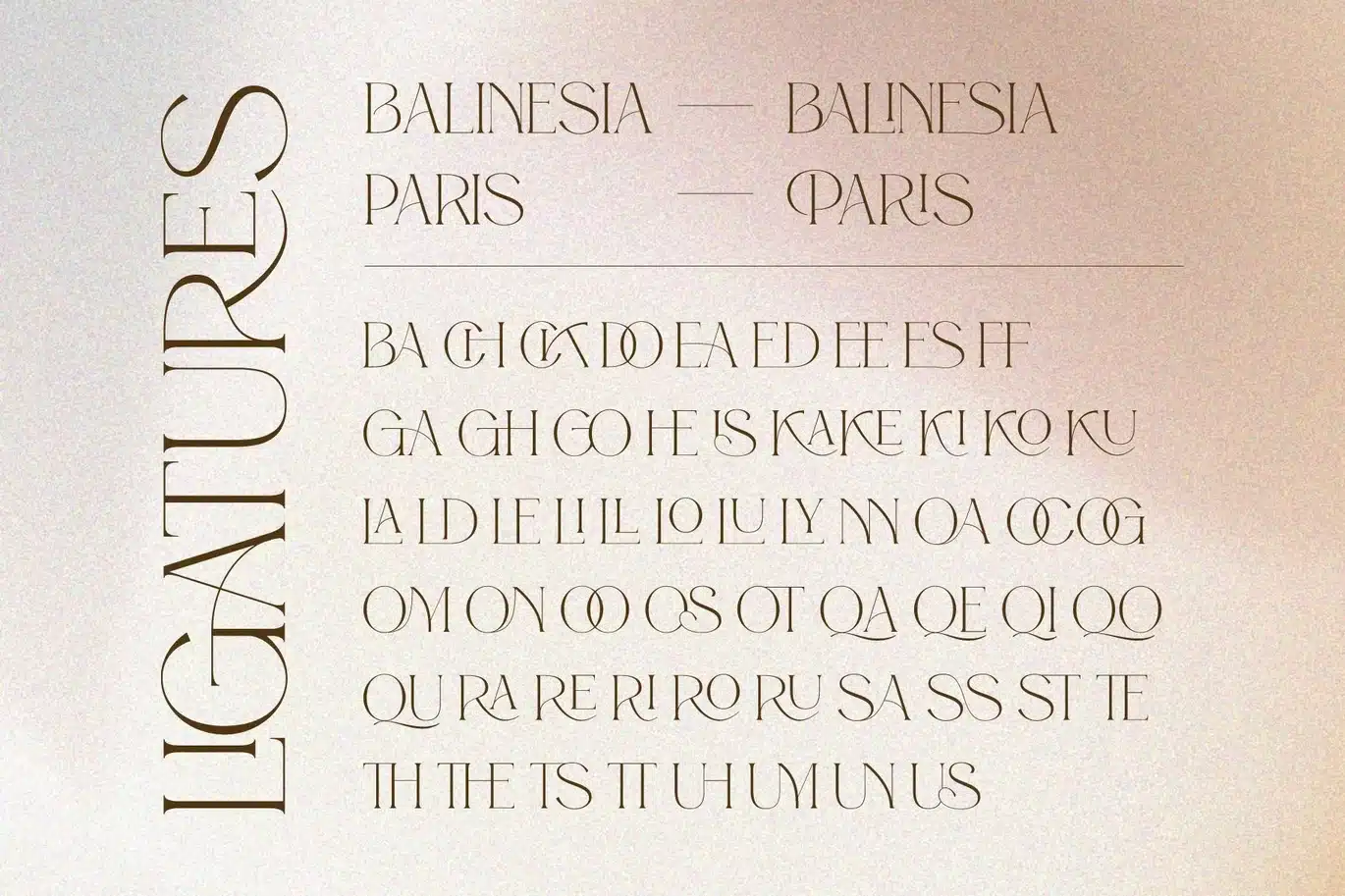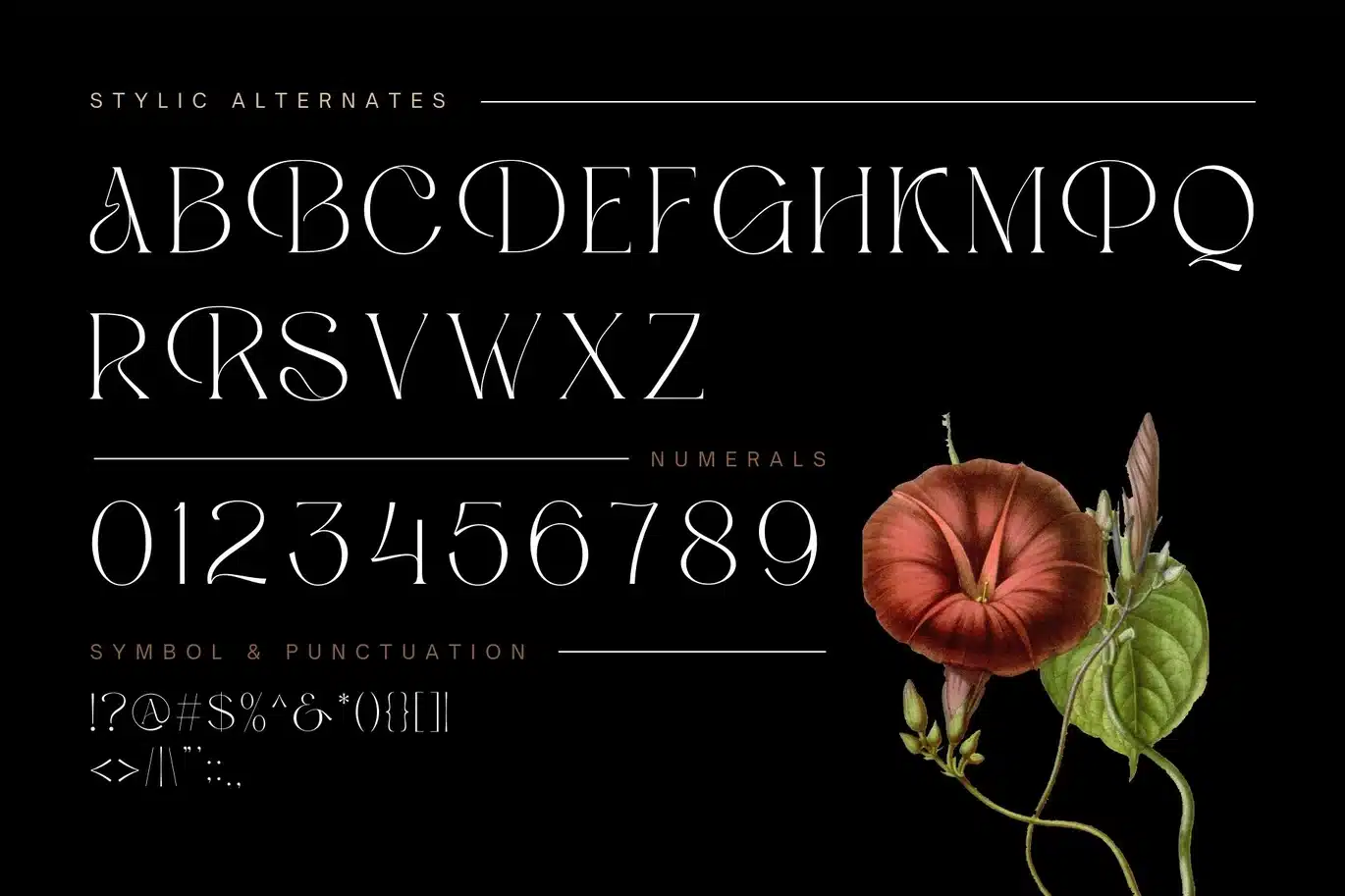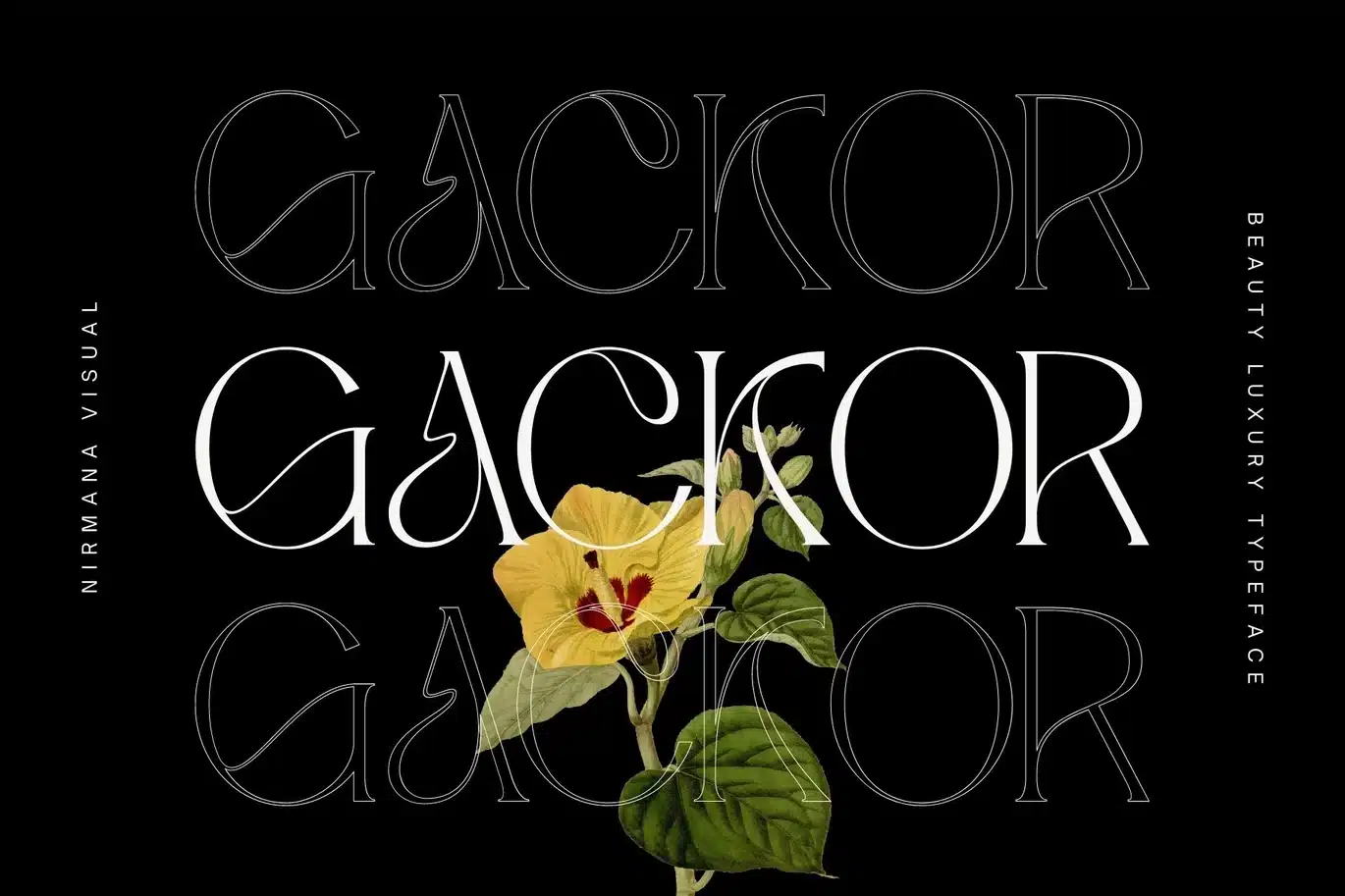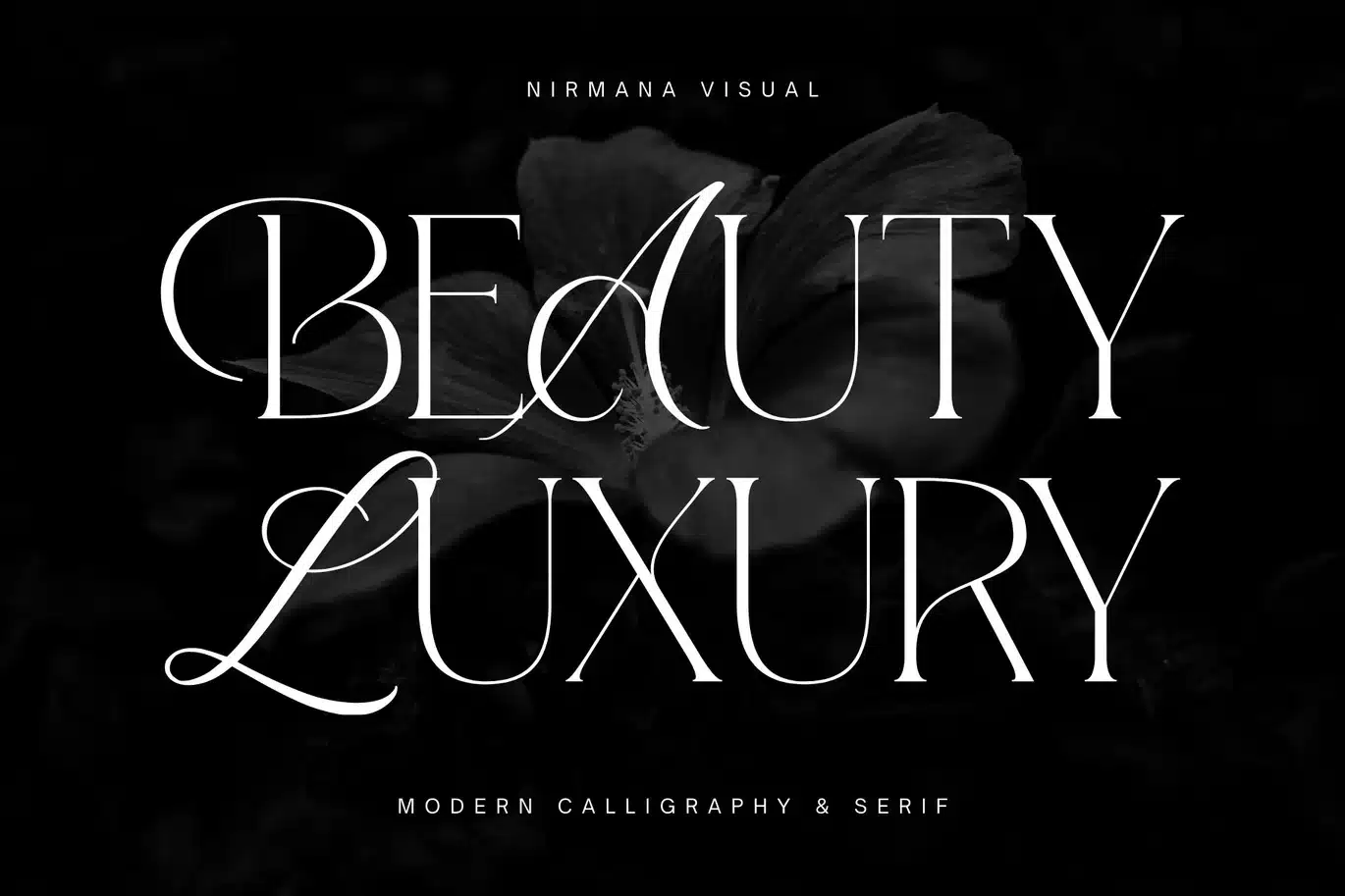
Beauty Luxury – Logo Font
Beauty Luxury is a luxury typeface, mix of modern calligraphy and serif.
full set of lowercase and uppercase letters, numerals and punctuation, multilingual symbols.